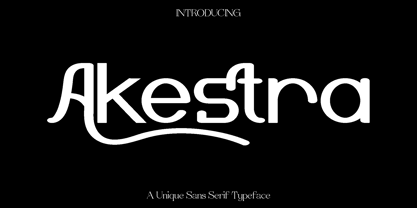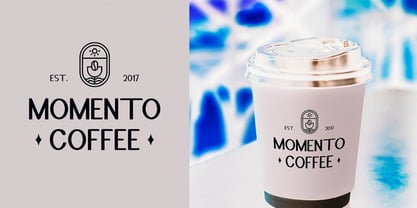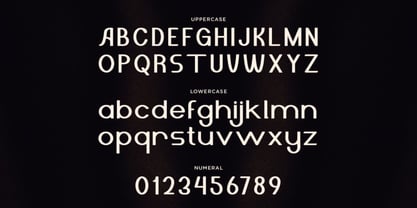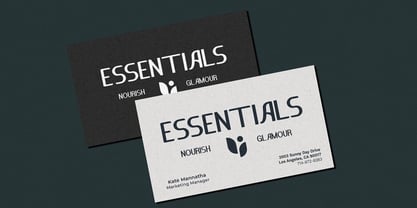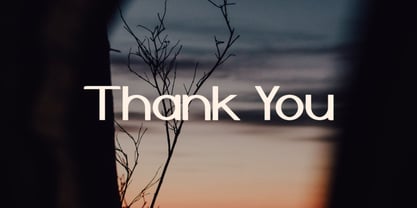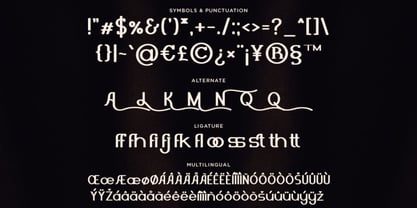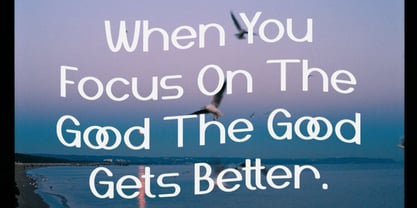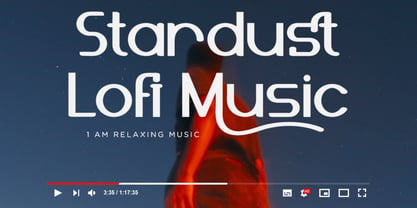
Akestra
by Only Fonts
The Akestra Font Family was designed by Olivia Love and published by Only Fonts. Akestra contains 1 styles. More about this family
Akestra – Modern Unique Sans Font Akestra is a modern sans serif font designed to bring clarity, personality, and a fresh visual voice to contemporary design. With clean geometry and subtle stylistic details, Akestra balances simplicity with uniqueness, giving it a distinctive character that feels both professional and creative. Its smooth letterforms and confident structure make it a versatile typeface that adapts effortlessly to a wide range of design styles. This font excels in branding, logo design, social media graphics, web design, posters, and modern editorial layouts. Akestra feels approachable yet stylish, making it perfect for projects that require a clean look with a memorable identity. Whether you are building a bold headline or crafting refined body text, Akestra maintains excellent readability while adding a modern edge. Crafted for designers who seek flexibility without sacrificing personality, Akestra features alternates and ligatures that allow for creative typographic compositions. Its balanced proportions ensure harmony across both digital and print applications. The font’s contemporary tone makes it suitable for startups, creative studios, lifestyle brands, and forward-thinking visual identities. With its blend of simplicity and distinctive style, Akestra helps your work feel polished, modern, and engaging. It is a dependable choice for creatives who want a sans serif that stands out while remaining highly functional. Akestra Font Features: • Uppercase and lowercase characters • Numbers, symbols, and punctuation • Ligatures and alternates • Multilingual support
Designers: Olivia Love
Foundry: Only Fonts